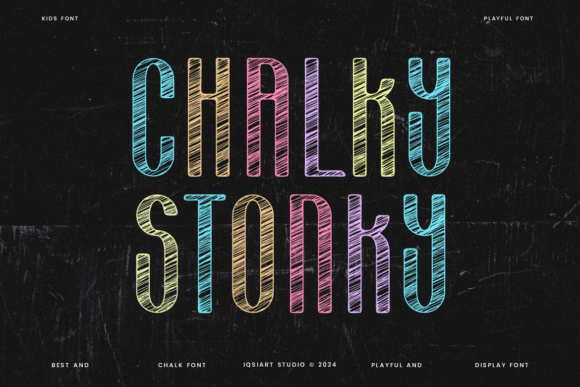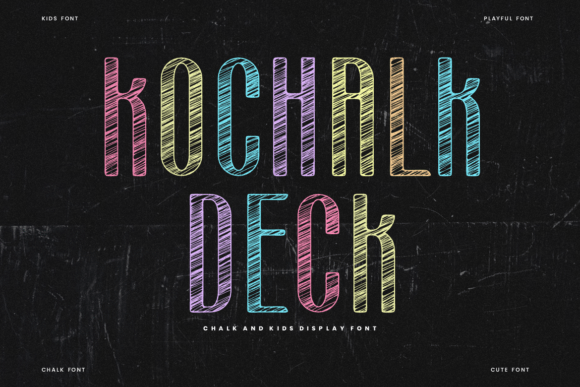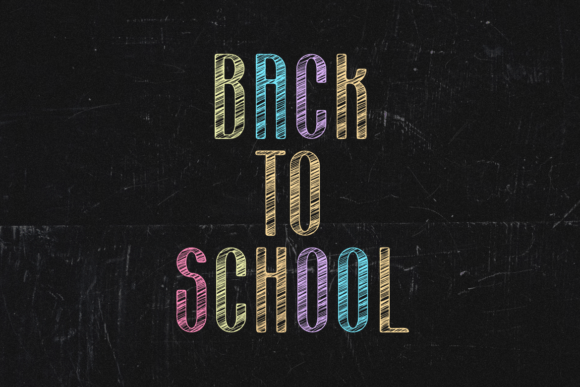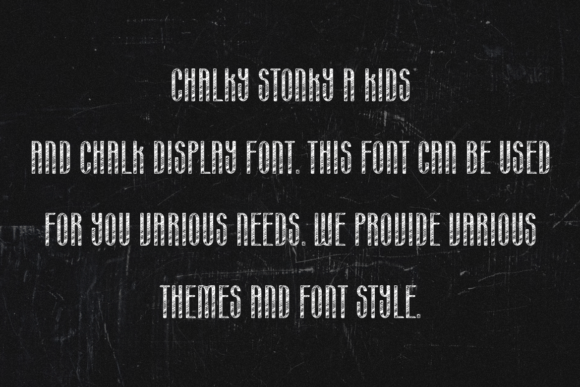
Chalky Stonky Font: A Playful Display Font for Kid’s Designs!
About the Chalky Stonky Font
Experience the unique personality of Chalky Stonky Font, a font designed for impact. Chalky Stonky is a playful and vibrant chalk-inspired font that brings a fun, hand-drawn feel to any project. With its textured, scribbled lines and colorful aesthetic, this font is perfect for school designs, kids’ projects, posters, signage, and creative branding. Whether you’re crafting educational materials or playful graphics, Chalky Stonky adds a lively and engaging touch to your typography.
Chalky Stonky Font Usage Examples
Chalky Stonky Font Example